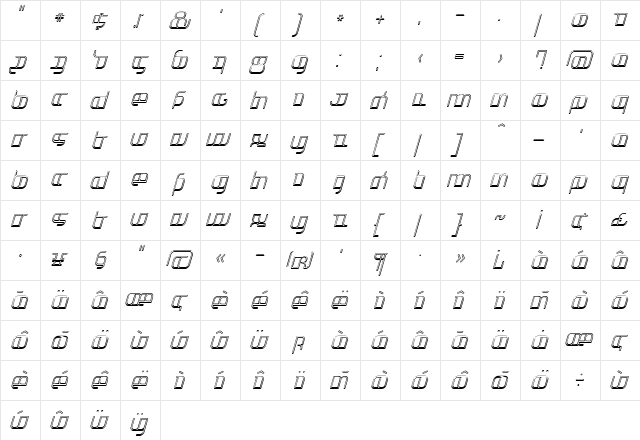
Jakone Italic
Design Context for Jakone Typeface
Jakone takes a measured approach to typography — its balanced proportions and neutral character make it a reliable workhorse for both digital and print work. Its italic angle brings a sense of urgency and motion to the letterforms.
Pro Tip: Try Jakone for annotation and caption copy alongside an upright companion — the contrast in angle creates a dynamic but ordered typographic system.